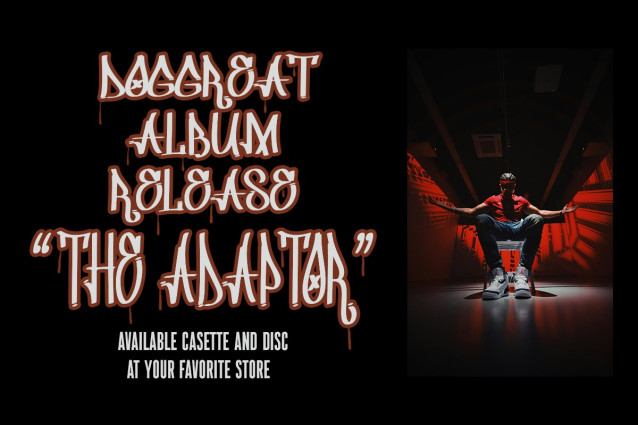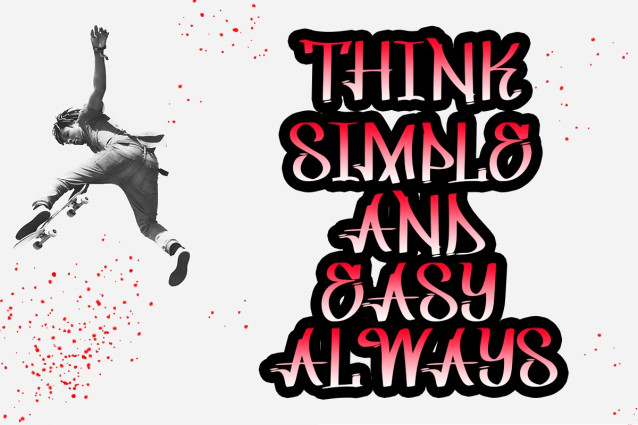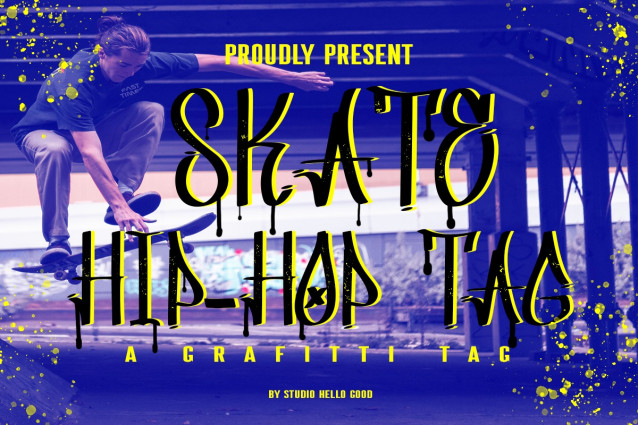
Skate Hip Hop Tag Font
Graffiti Hip Hop Tag Font, a bold and expressive font that embodies the vibrant energy and urban culture of street art and hip-hop. Inspired by the dynamic aesthetics of graffiti tags and murals, this font is the perfect choice for projects seeking to capture the essence of urban expression and artistic rebellion.
Graffiti Hip Hop Tag commands attention with its sharp edges, bold strokes, and urban-inspired flair. Each letter is a statement in itself, reminiscent of the bold tags and intricate murals that adorn city streets, underpasses, and alleyways around the world.
Whether you’re creating street art, designing murals, or adding an edgy vibe to your projects, Graffiti Hip Hop Tag brings a raw and authentic urban aesthetic to the forefront. Its bold presence demands to be noticed, making it an ideal choice for conveying messages of creativity, empowerment, and social commentary.
Embrace the spirit of urban culture and artistic rebellion with Graffiti Hip Hop Tag. Let its bold and expressive style become the voice of the streets, transforming any project into a canvas for urban expression and cultural dialogue. With Graffiti Hip Hop Tag, every design becomes a testament to the power of street art and the vibrancy of hip-hop culture.